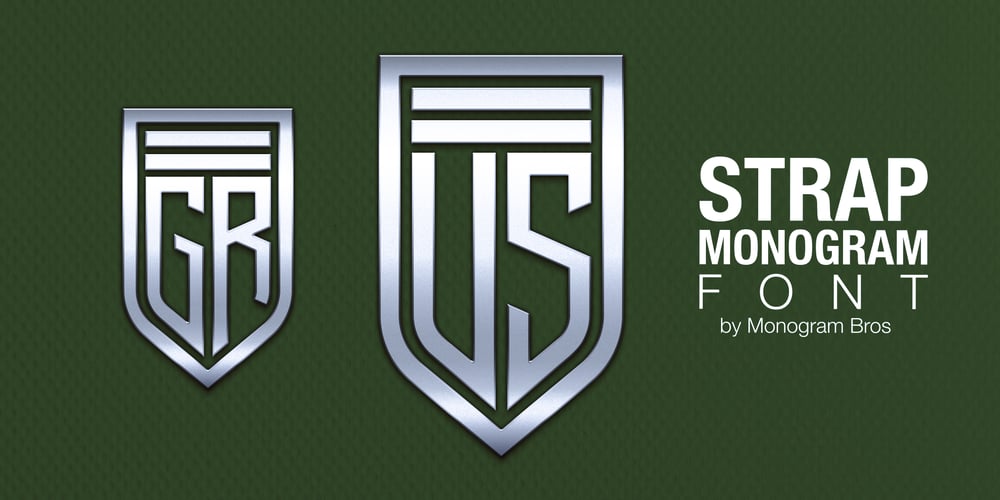
Strap Monogram
Strap Monogram font
Strap Monogram Font Family was designed by Andrei Isakau and published by MonogramBros. Strap Monogram contains 1 styles and family package options. Strap Monogram Font is a perfect shaped monogram font consisting of 52 letters and 1 basic frame. Octagon Monogram Font comes with font files in OTF format. With just a single font file you will be able to create beautiful strap monograms in just a matter of minutes after the purchase!